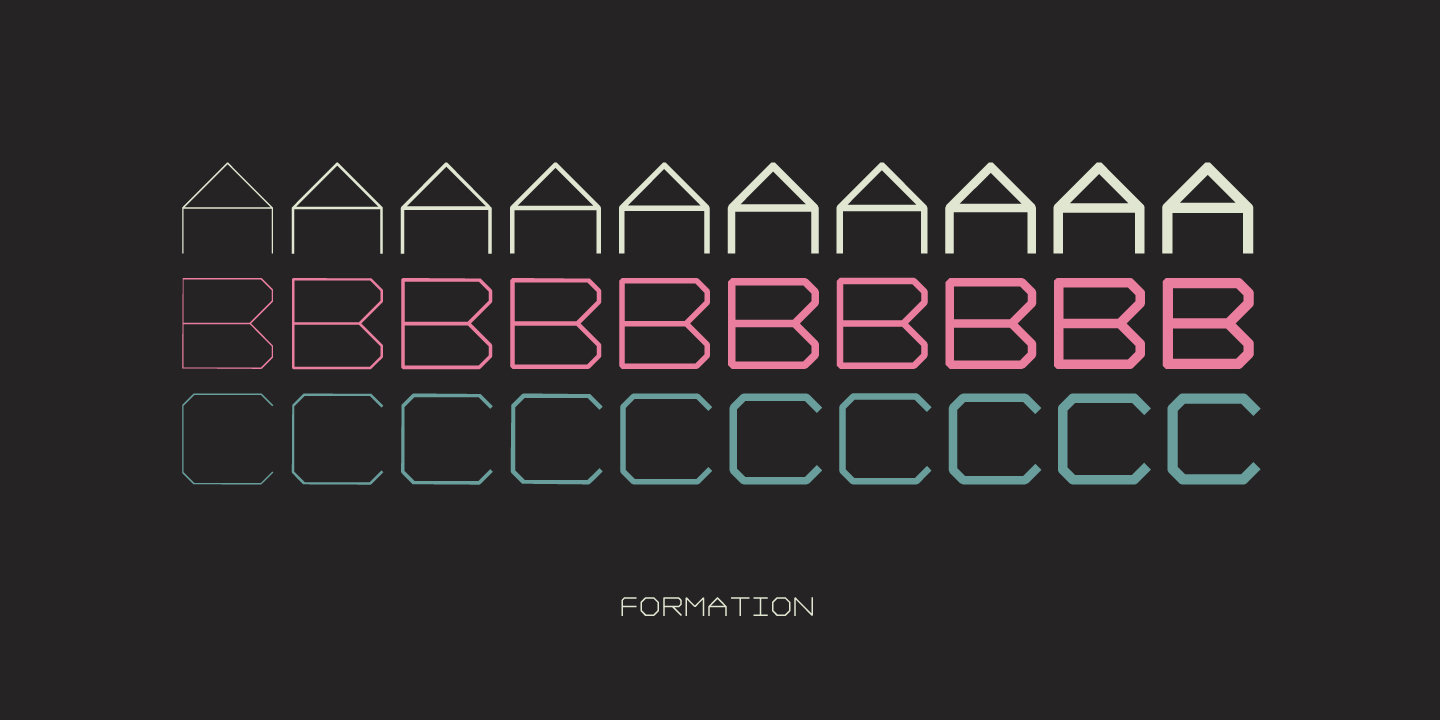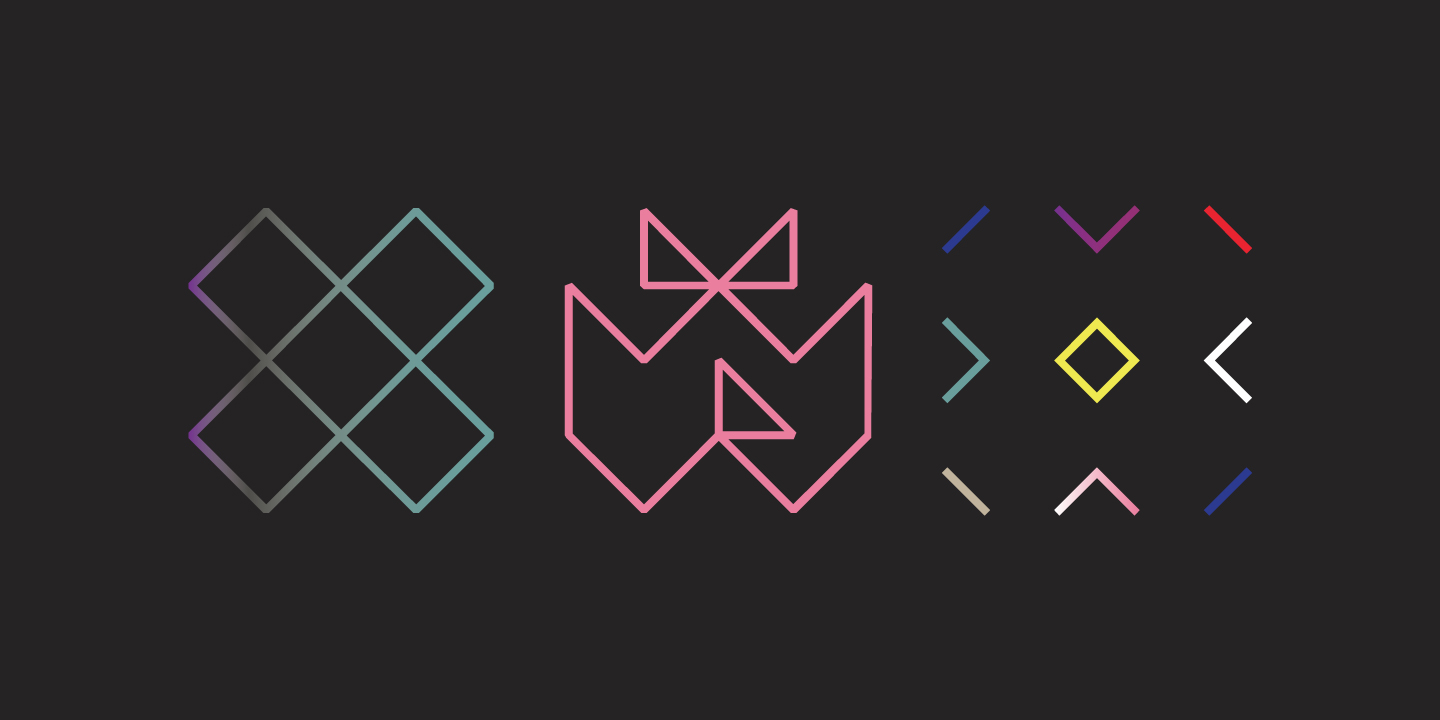
Influenced by a unique appreciation for Ed Ruscha and AutoCAD, YWFT Formation is an extensive typeface design that goes the distance. It looks machine-like, masculine and slick on the surface, but can also be quite feminine and slim when using the Thin and ExtraLight weights. YWFT Formation has been used numerous times by the magazines W, Wired and ESPN. YWFT Formation was originally designed in 1999, converted to opentype in 2010.